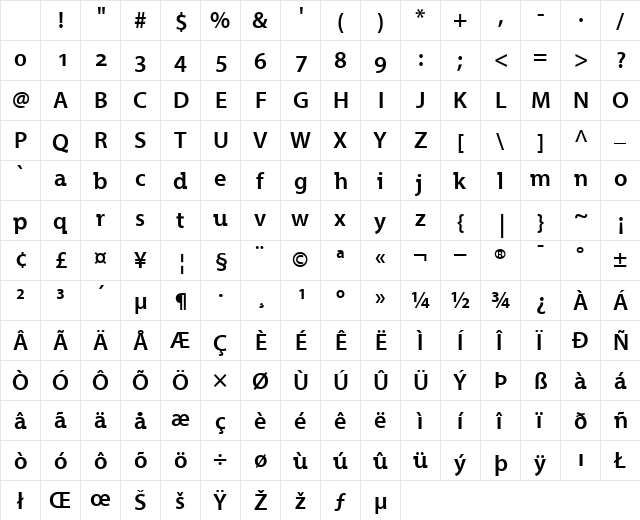
Complete Grandesign Light Bold glyph index. Displaying only characters natively supported by Grandesign Light Bold font.
Grandesign Light is a composed and adaptable typeface that performs quietly and consistently across a wide range of design contexts. Its bold stroke weight gives it real presence on the page.